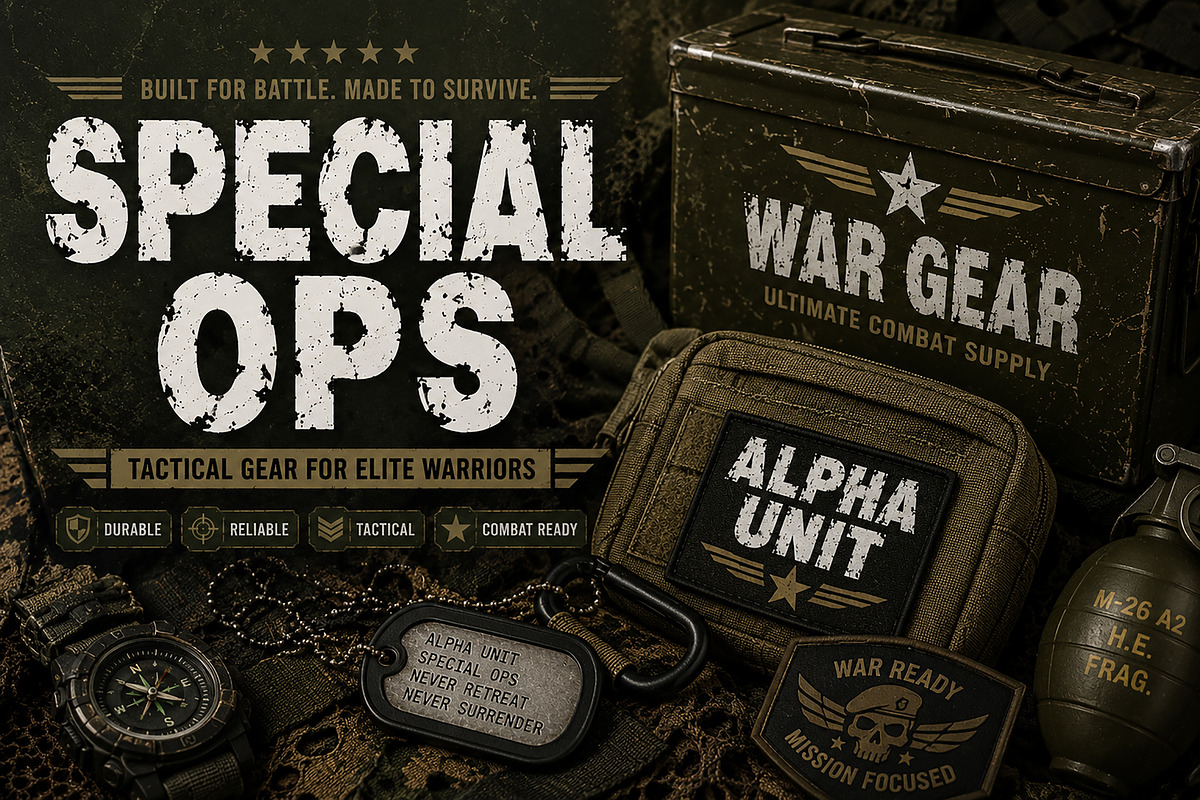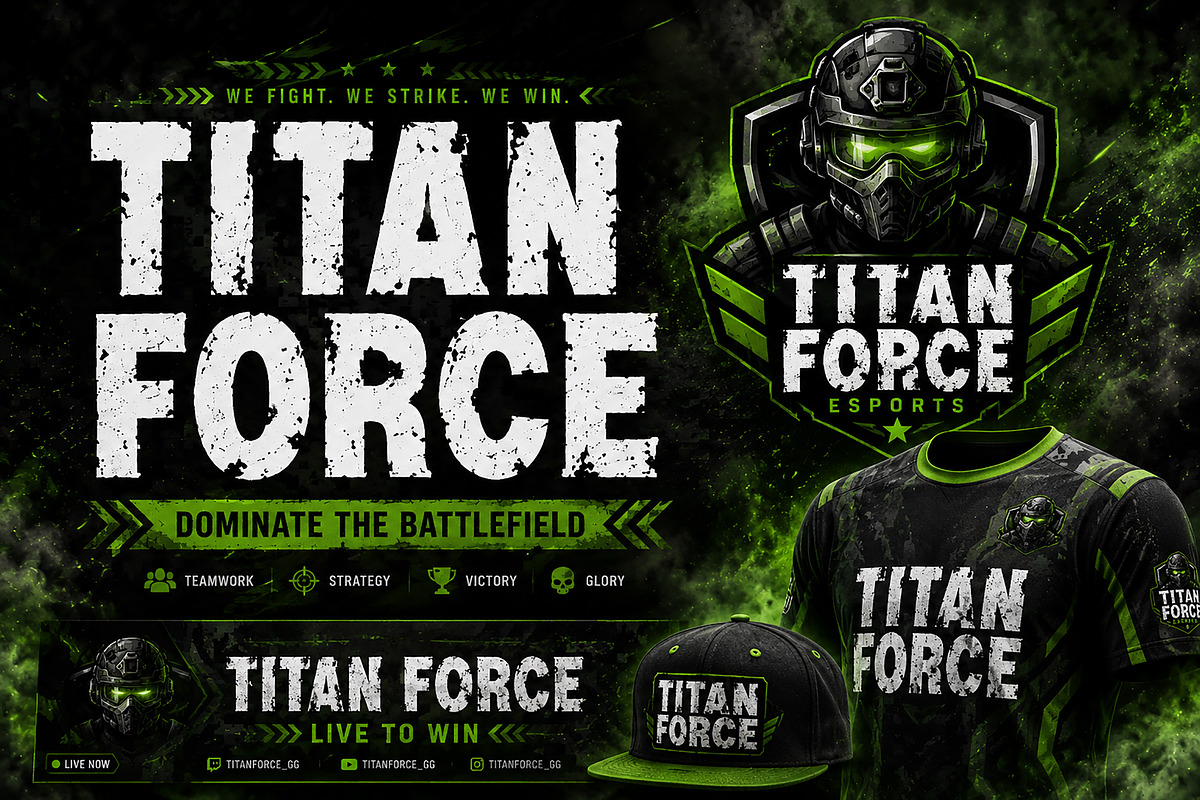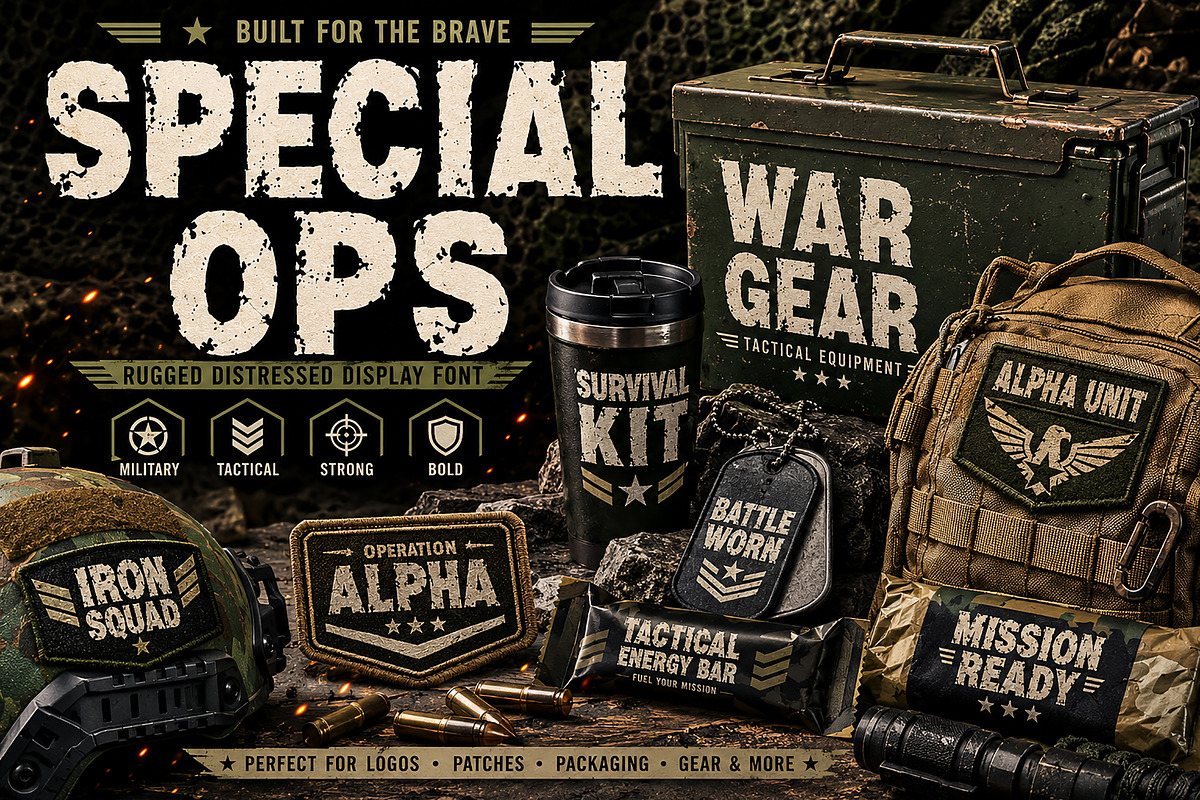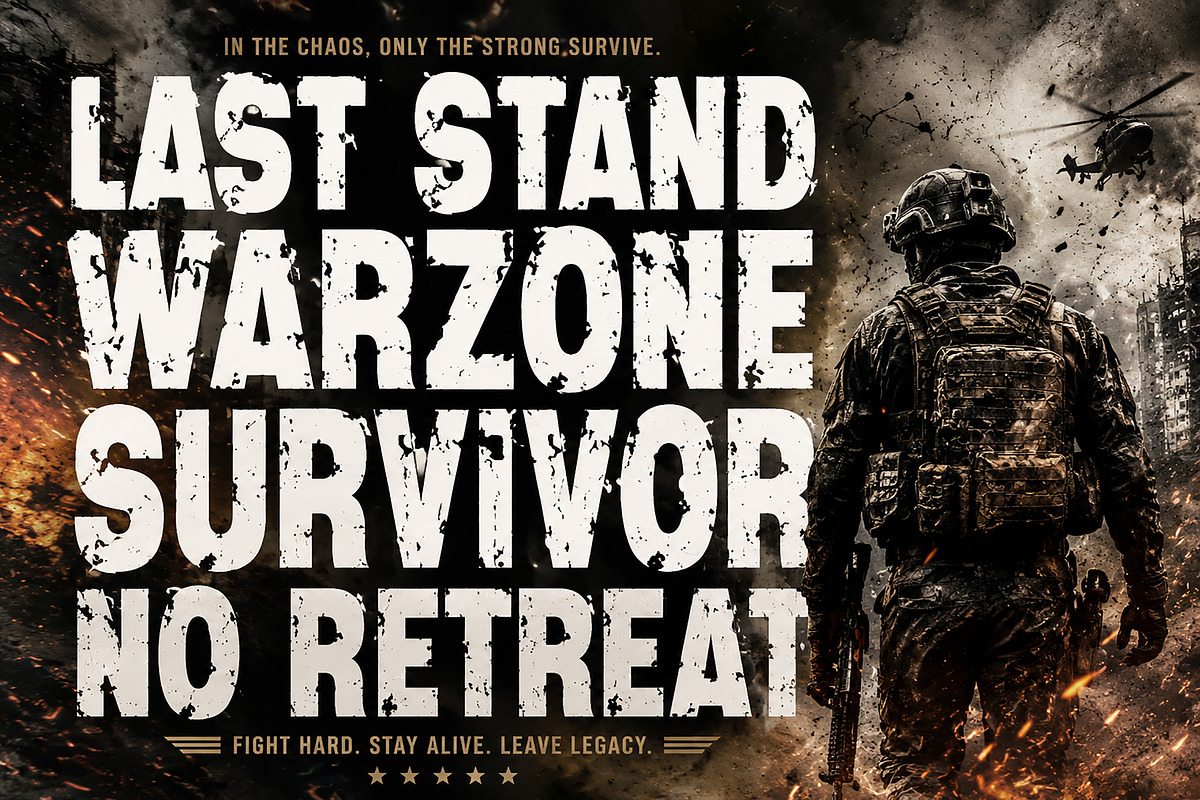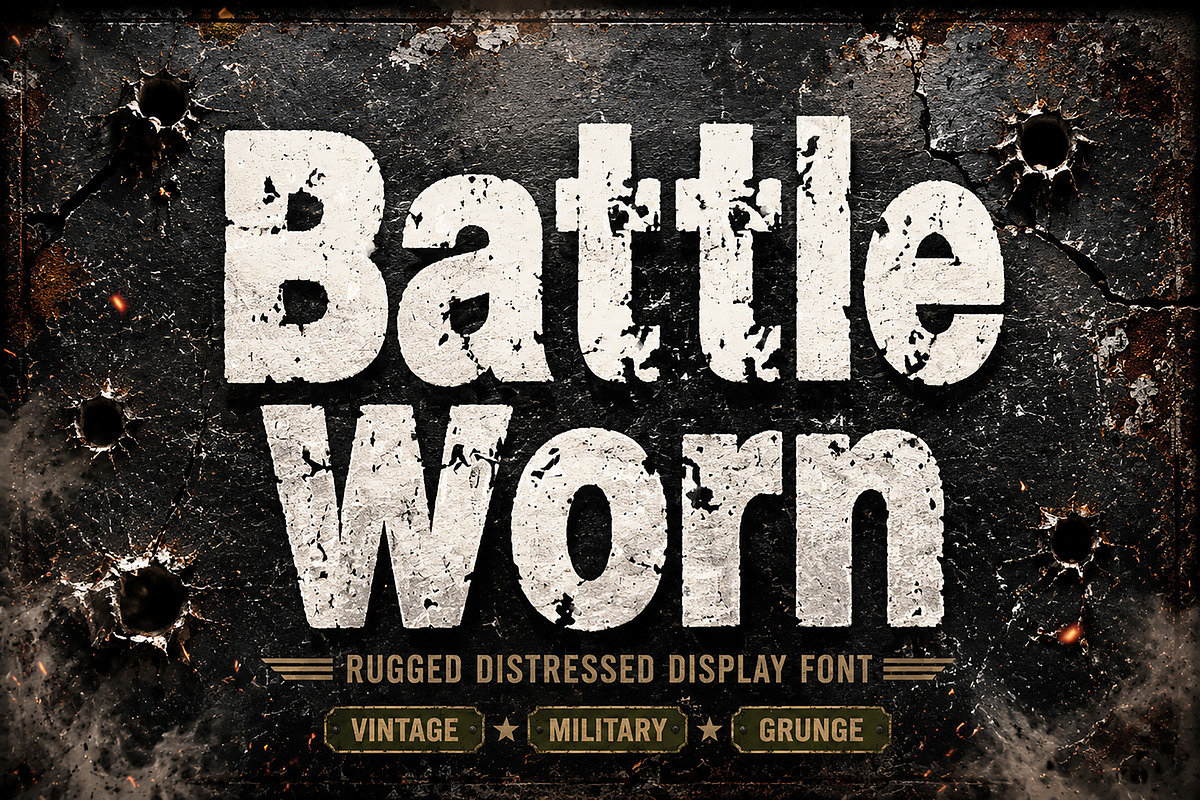
Battle Worn
Battle Worn —
Battle Worn is a bold distressed display font built for high-impact designs. Inspired by rugged military aesthetics, grunge textures, vintage battle gear, and worn industrial surfaces, this typeface delivers a raw, aggressive, and powerful visual presence.
With its rough-edged, weathered details and strong letterforms, Battle Worn is perfect for projects that need a tough, gritty, and fearless character. Whether you're designing gaming logos, military branding, action movie posters, streetwear apparel, survival gear packaging, or vintage-style merchandise, this font brings authentic battle-scarred energy to your work.
Its bold structure ensures strong readability while maintaining a damaged, worn-out texture that adds realism and depth to any composition.
Gaming Logos
Esports Branding
Military Designs
Tactical Packaging
Action Movie Posters
Vintage Apparel
Streetwear Graphics
Survival Product Branding
YouTube Thumbnails
Badge & Emblem Designs
Posters & Headlines
Merchandise Design
Uppercase Letters
Lowercase Letters
Strong Distressed Texture
High Readability
Battle Worn is the perfect choice for designers looking for a font that feels bold, battle-tested, and unapologetically rugged.